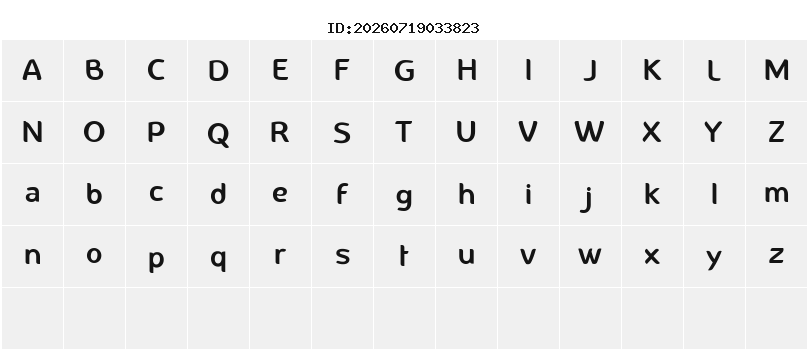
Constance Preview
• Font Name: Constance
• Full Font Name: Constance
• Designer: Beno”t Sjšholm
About Constance.ttf
Constance.ttf is a modern, elegant sans-serif font designed for ultimate readability and visual harmony. Perfect for branding, headlines, web design, and print materials.